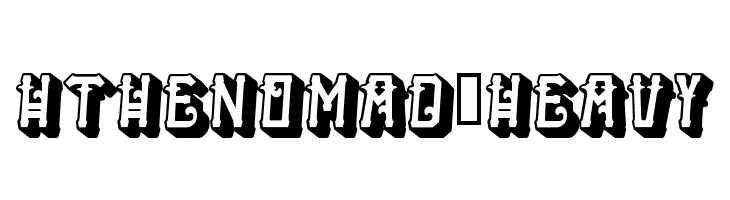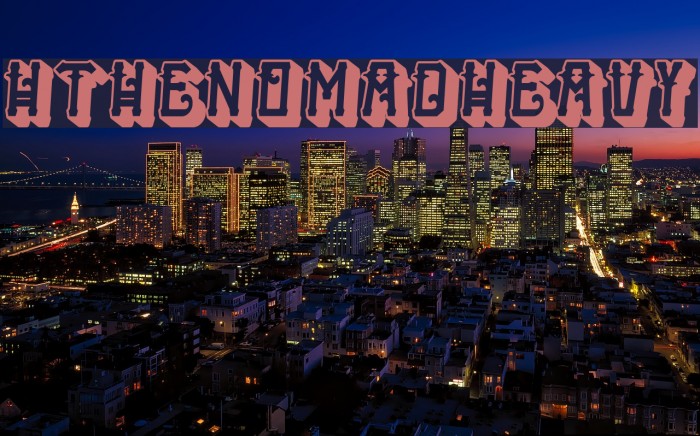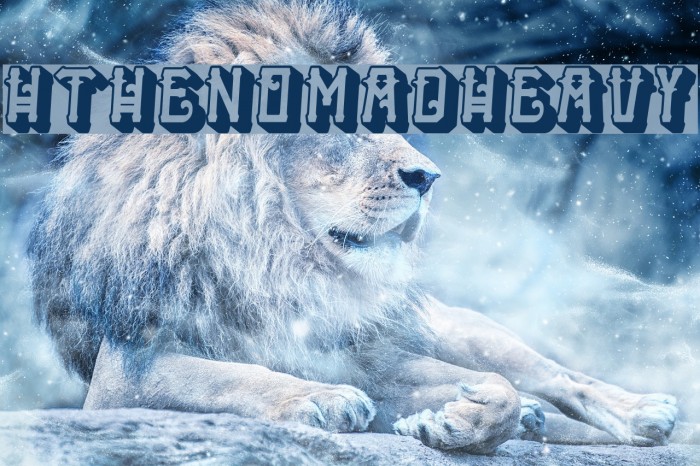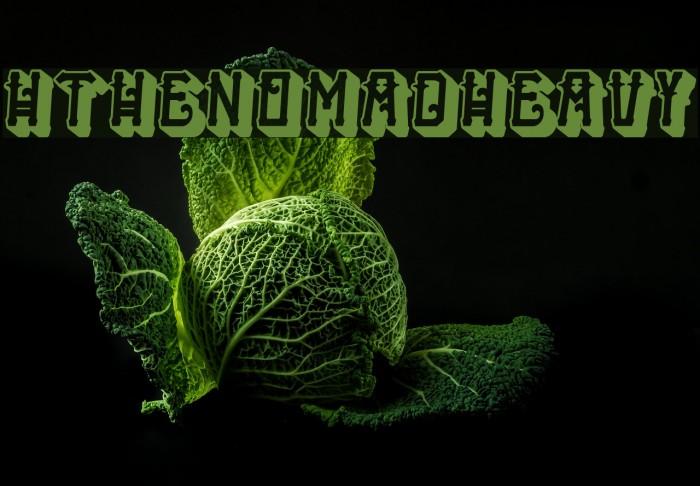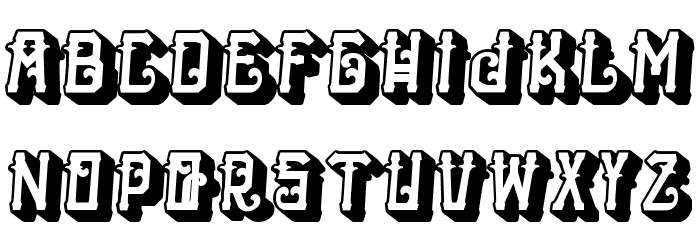
HTheNomad-Heavy Font
HTheNomad-Heavy Description
This font features a bold, three-dimensional style with a strong shadow effect, giving it a striking and impactful appearance. The characters are uppercase and have a blocky, geometric design with sharp angles and edges. The shadow adds depth, making the letters stand out prominently. This font is ideal for creating eye-catching headlines or titles that need to grab attention. The overall aesthetic is modern and dynamic, suitable for projects that require a bold statement.
| Proposed Projects | Ideal for posters, logos, headlines, and any design needing a bold, attention-grabbing typeface. |